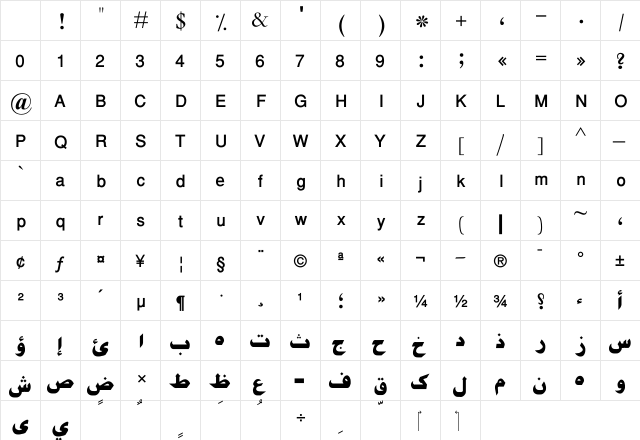
AGT M Nasim Baras is a composed and adaptable typeface that performs quietly and consistently across a wide range of design contexts. Its bold stroke weight gives it real presence on the page.